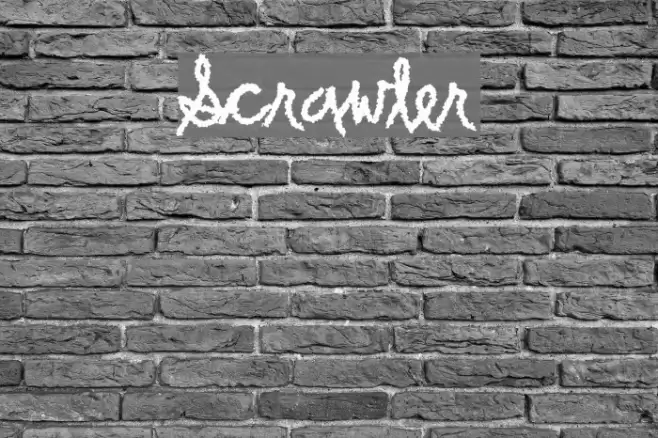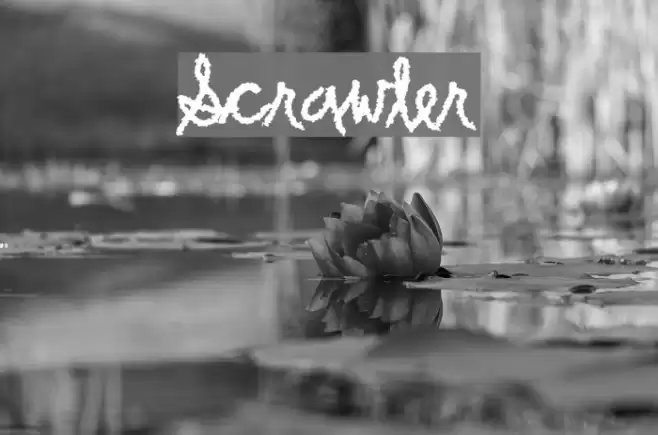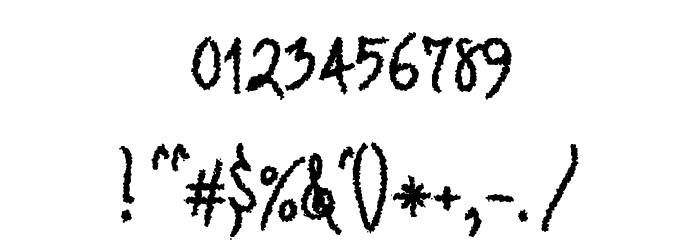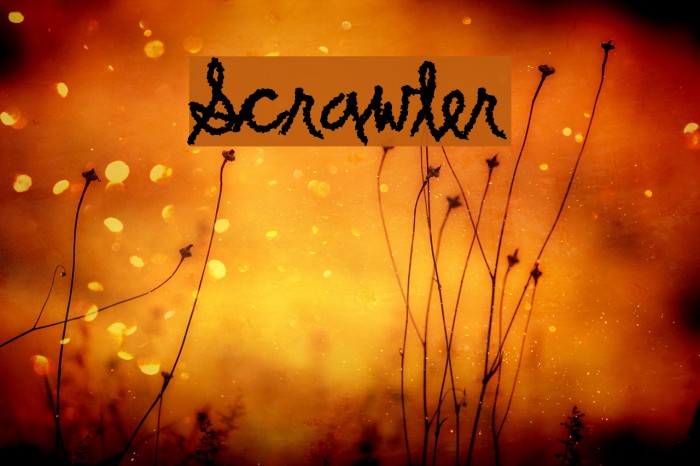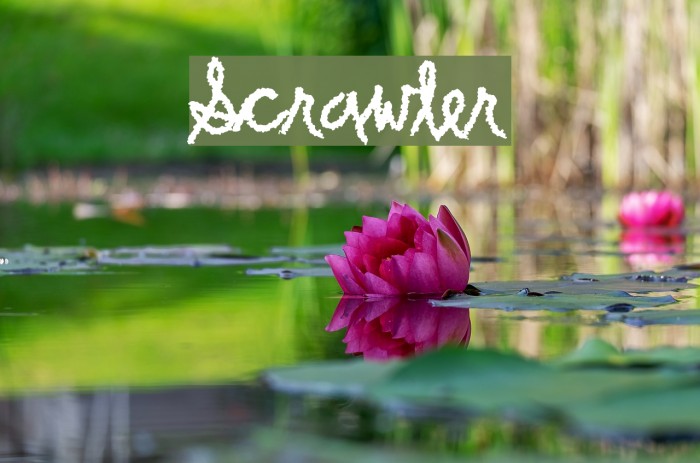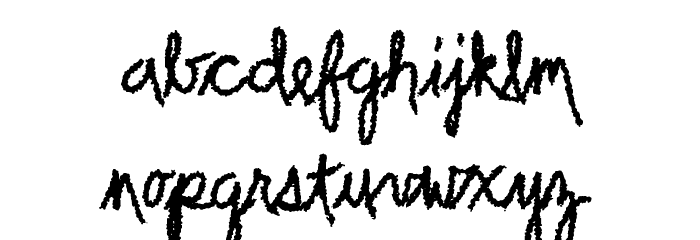
Scrawler Font
Scrawler Description
This font exudes a raw, expressive energy with its hand-drawn, graffiti-like appearance. The letters are irregular and dynamic, capturing a sense of motion and spontaneity. Each character is unique, with varying stroke widths that give it a textured, almost scribbled look. The uppercase letters are bold and assertive, while the lowercase letters maintain a consistent flow, enhancing the font's informal and artistic style. Numbers and special characters follow the same aesthetic, adding to the font's versatility and appeal for creative projects.
A dynamic, hand-drawn font with a graffiti-like, expressive style from Uncategorized fonts.
- Proposed Projects: Ideal for street art-inspired designs, edgy branding, album covers, and creative posters.
- Use Case: Logos, Headlines, Creative projects